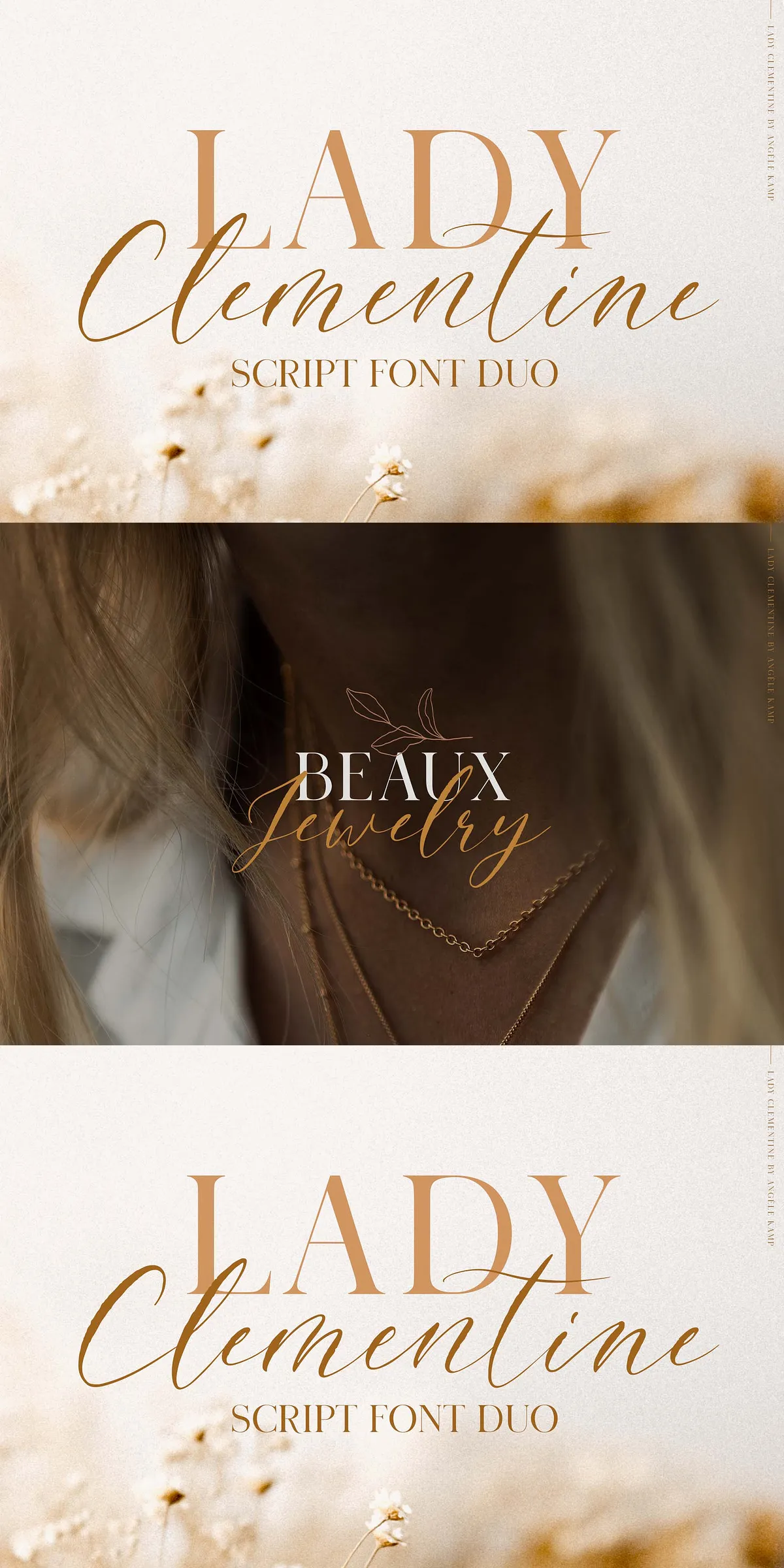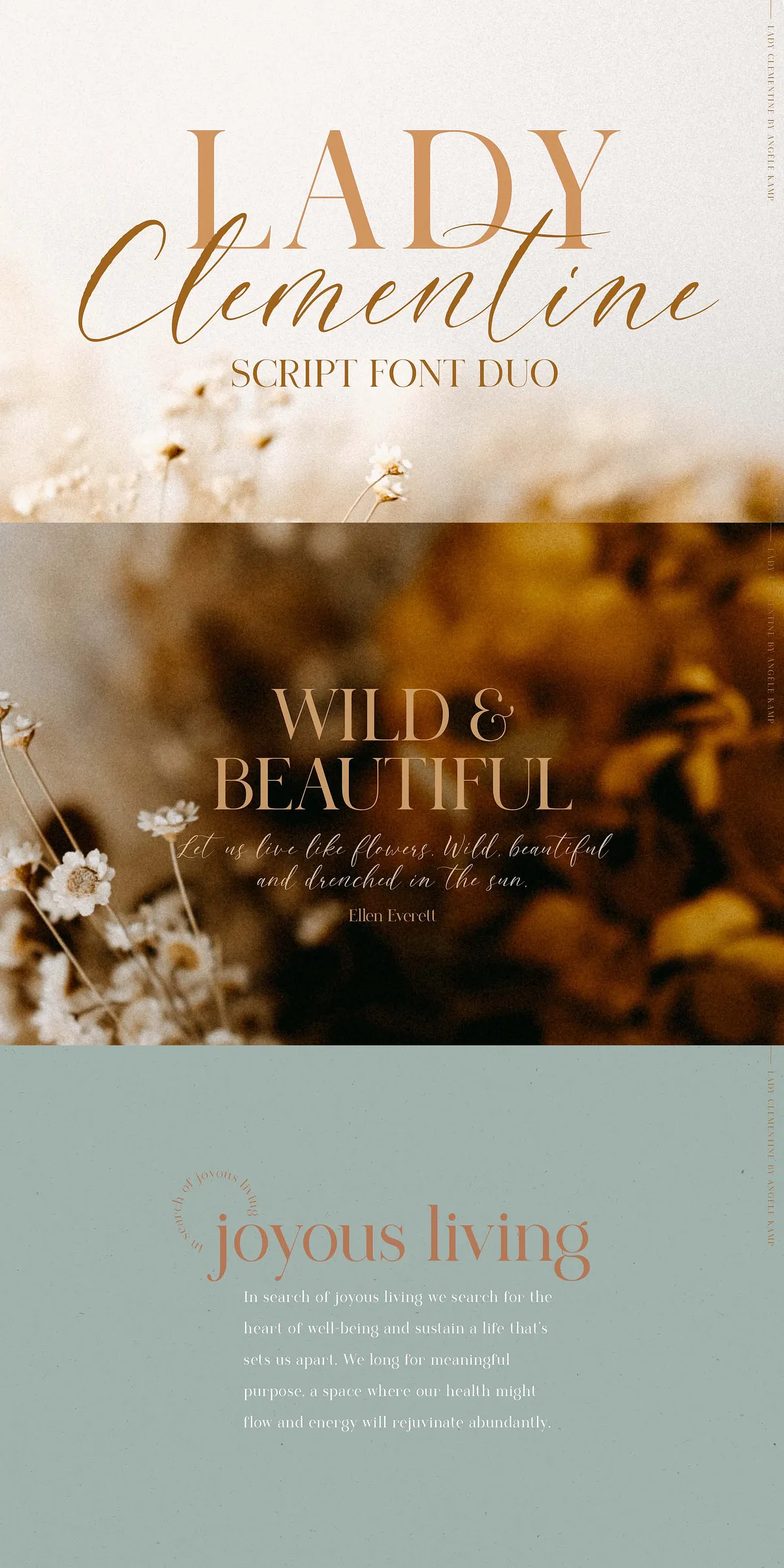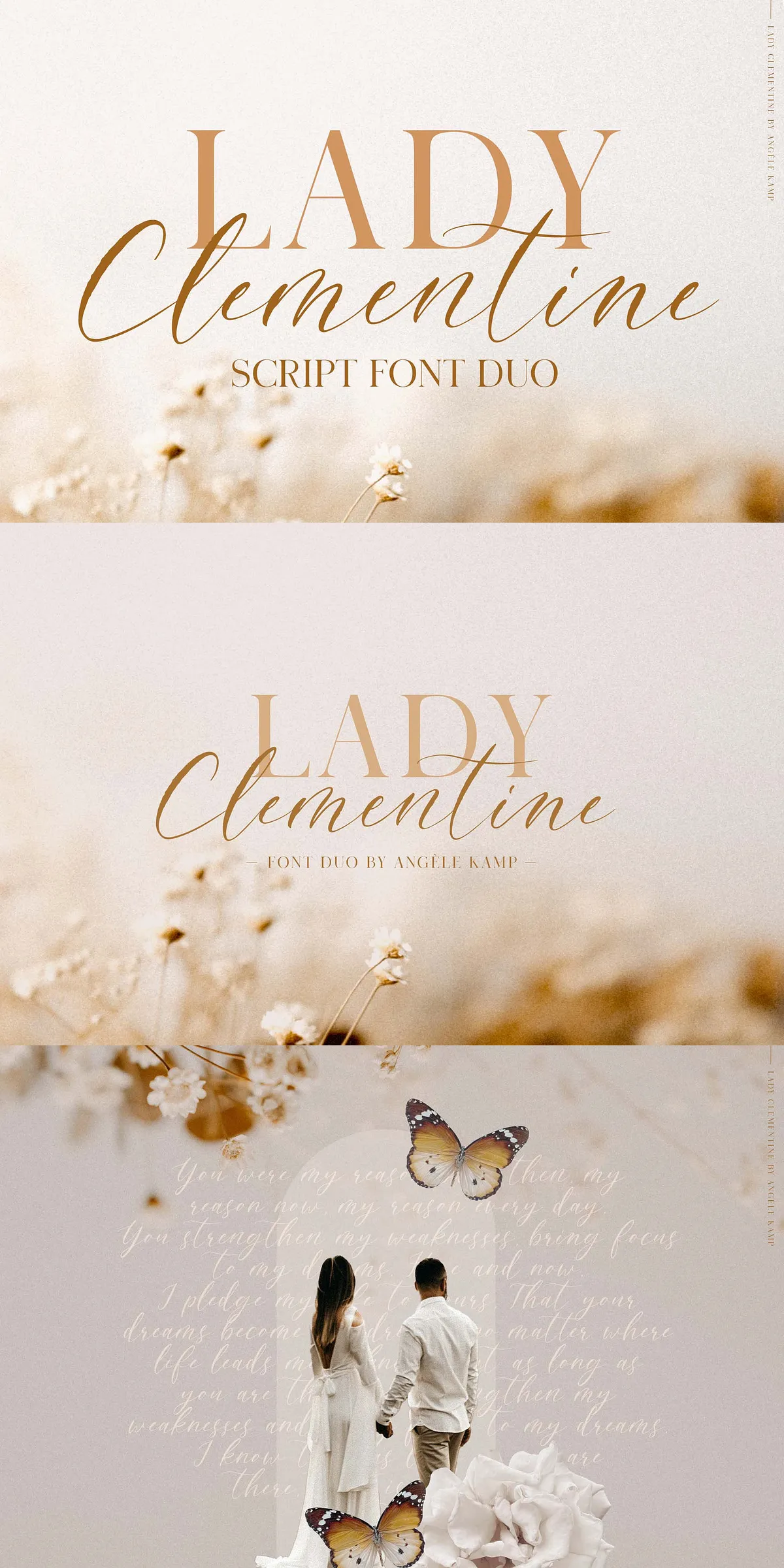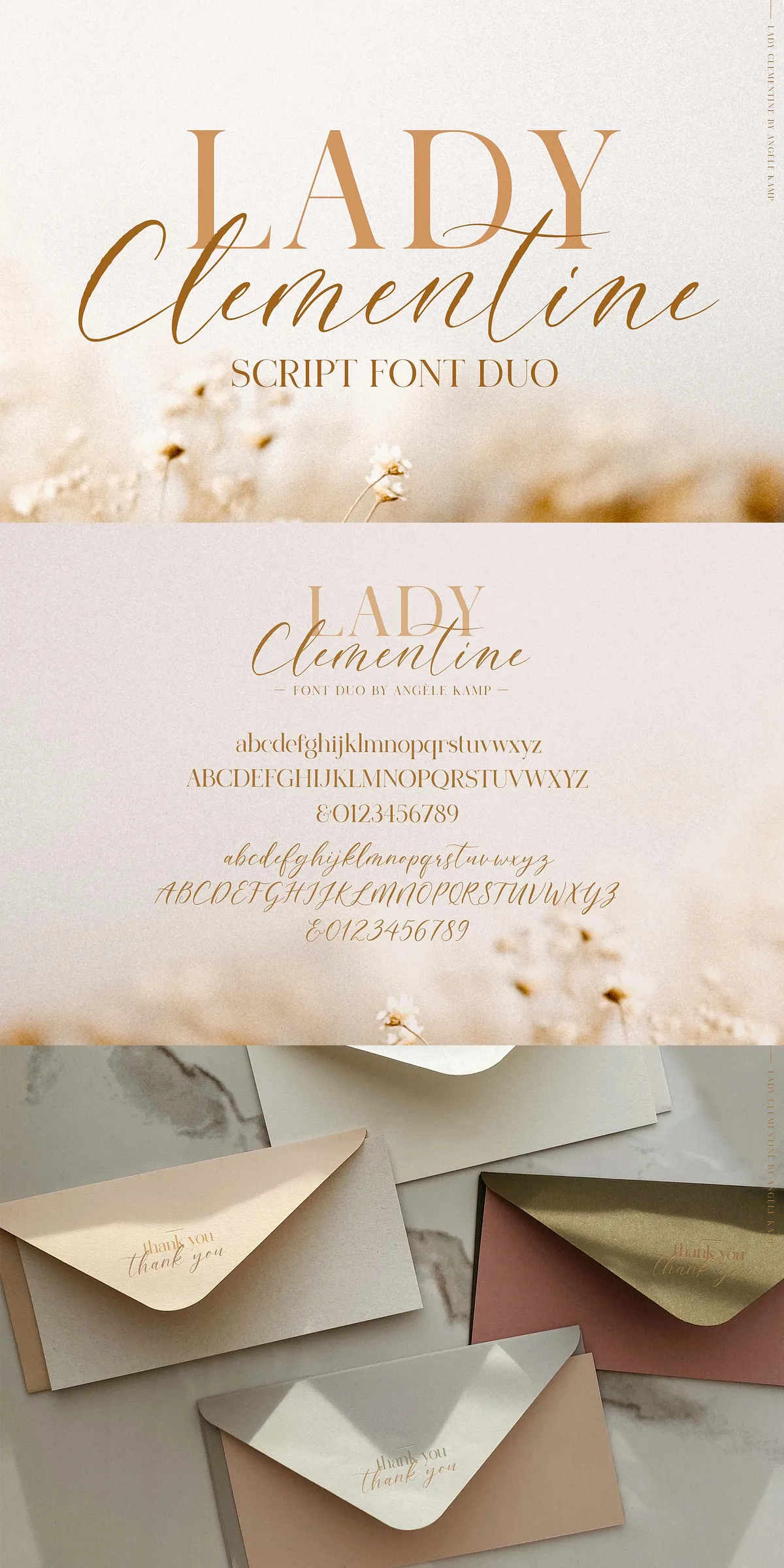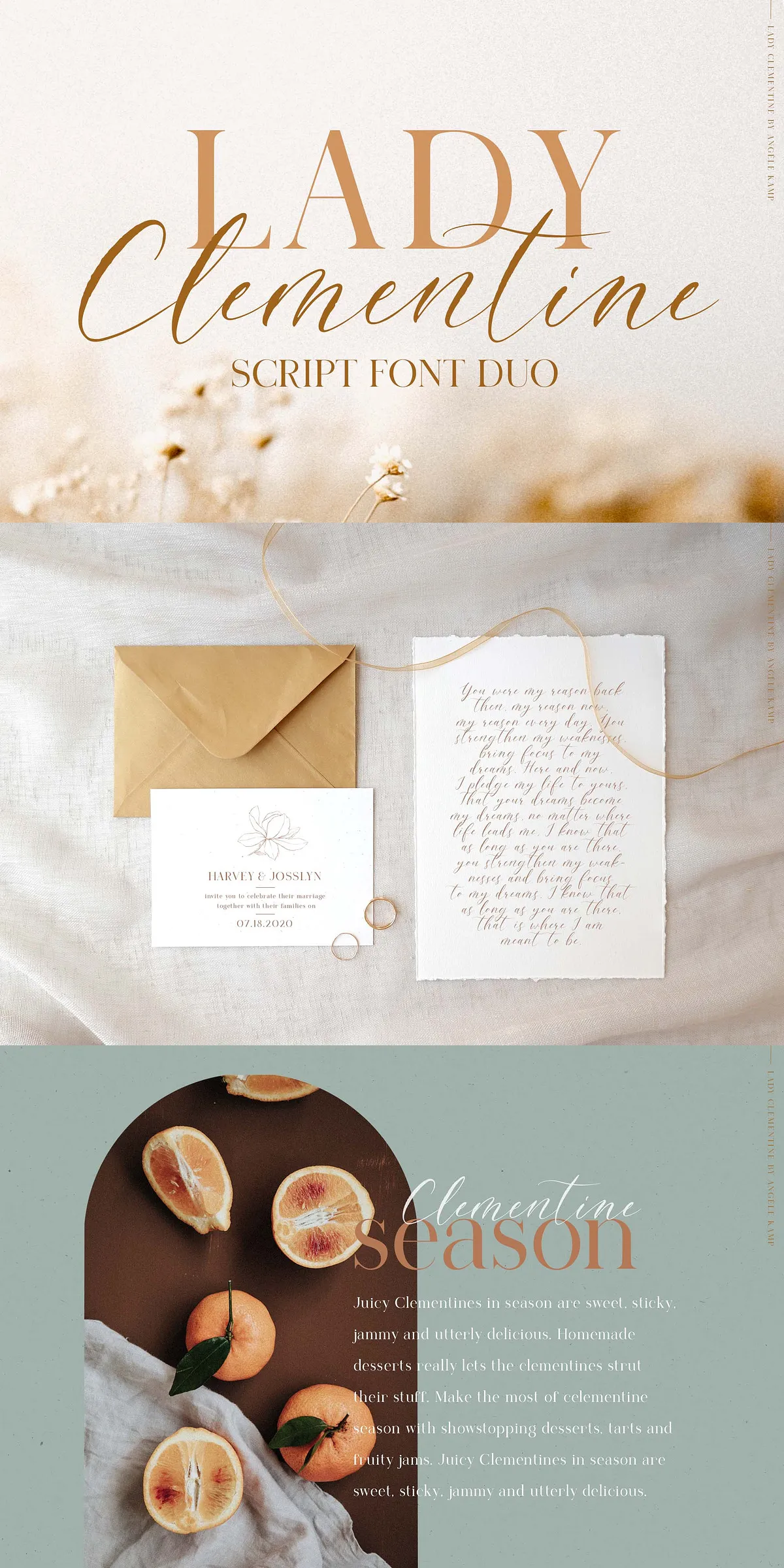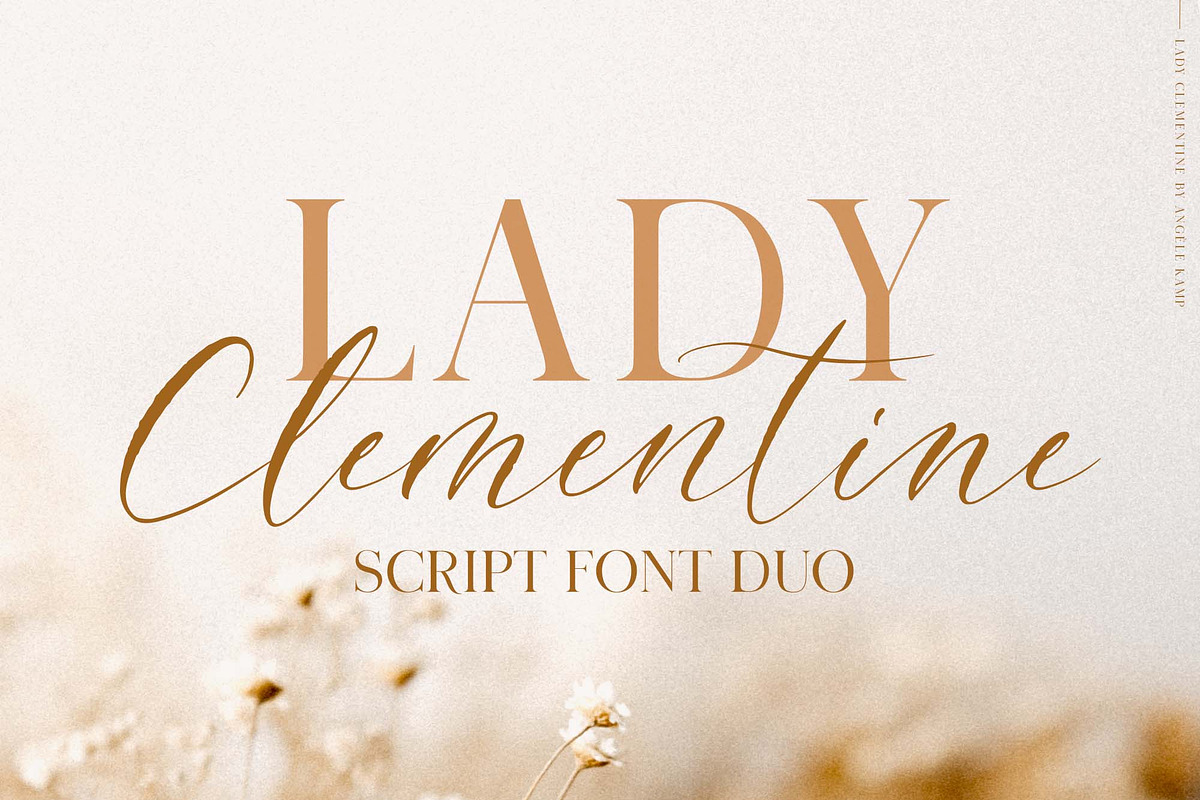
Lady Clementine wedding script fonts
Step into a world of romance and refined beauty with Lady Clementine, a breathtaking wedding font duo that marries the delicate artistry of hand-lettered calligraphy with the timeless strength of a luxurious serif. This isn’t just a font — it’s a feeling. A whisper of lace, the soft rustle of a gown, the quiet elegance of a candlelit ceremony. Lady Clementine transforms every project into a living love letter, crafted for designers who value emotional depth and visual sophistication.
Two Fonts, One Vision — The Perfect Balance of Texture and Structure
Lady Clementine is built on the harmony between two distinct yet complementary typefaces:
• Textured Script Font: A hand-lettered masterpiece with subtle, organic texture that mimics authentic modern calligraphy. Each stroke flows with gentle variation, capturing the soul of a brush or fountain pen. The natural imperfections add warmth and humanity, bringing your design to life with quiet authenticity.
• Luxurious Serif Font: Precision-engineered to match the script’s grace, this serif typeface features elegant curves, refined serifs, and balanced proportions. It provides a strong visual foundation, adding depth and structure that elevates the entire composition.
Together, they create a dynamic balance — the script whispers intimacy, while the serif speaks confidence. The result? A typographic duo that feels both romantic and powerful, feminine yet authoritative.
Perfect Pairings — Where Script Meets Serif in Perfect Harmony
When used together, Lady Clementine unlocks a new dimension of design possibility. The script sings in the title, while the serif grounds the body text with clarity. The combination is ideal for:
• Wedding Invitations: Create breathtaking save-the-date cards, wedding programs, and ceremony signage that feel personal, heartfelt, and timeless.
• Feminine Branding: Build elegant identities for bridal boutiques, spa brands, lifestyle blogs, and fine art studios with a soft, inviting aesthetic.
• Stylish Logos & Stationery: Design premium business cards, packaging, and branding materials that exude sophistication and charm.
• Artistic Projects: Use in journals, limited-edition prints, poetry books, or editorial layouts where emotional resonance is key.
• Social Media & Digital Campaigns: Craft visually cohesive posts, stories, and ads that capture attention with emotional depth and style.
Designed by Angele Kamp — A Heart for Nature, a Mind for Design
Lady Clementine is the creation of Angele Kamp, a passionate designer whose work is deeply inspired by nature’s quiet beauty. From watercolor florals to delicate hand-lettering, her art reflects a love for soft, neutral palettes, organic forms, and timeless elegance.
Her expertise lies in crafting fonts that don’t just look good — they feel good. Each design tells a story, evoking emotion and memory. With Lady Clementine, she’s captured the magic of a wedding day: the nervous laughter, the quiet glances, the joy of a shared promise. Now, you can bring that magic to every project.